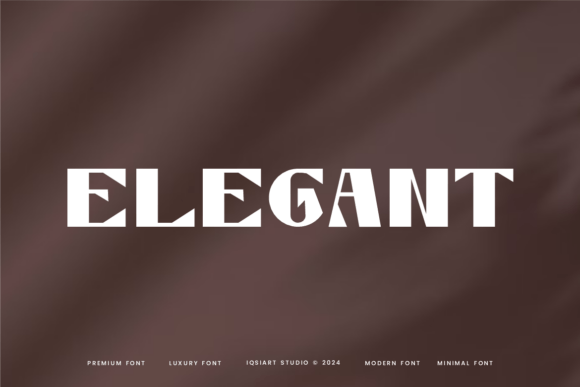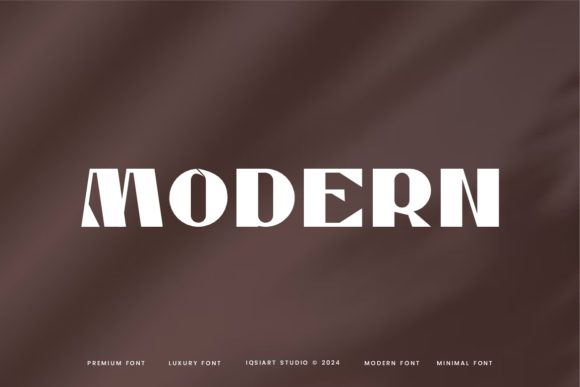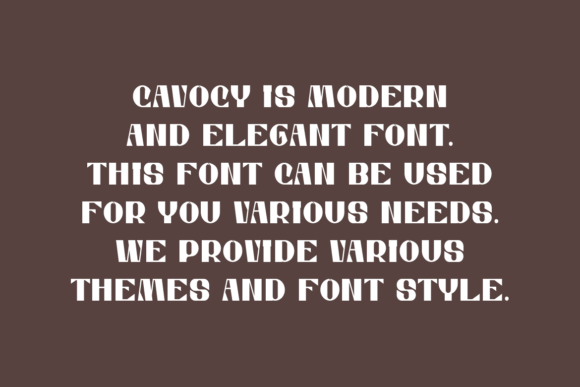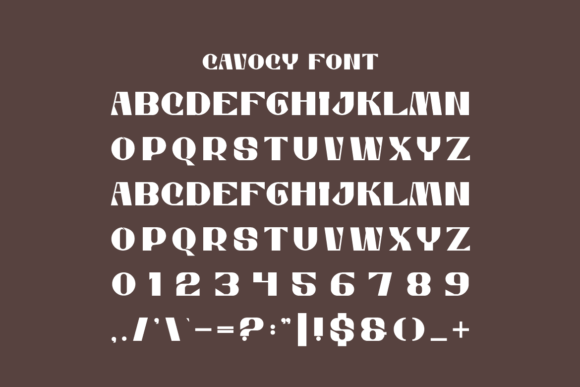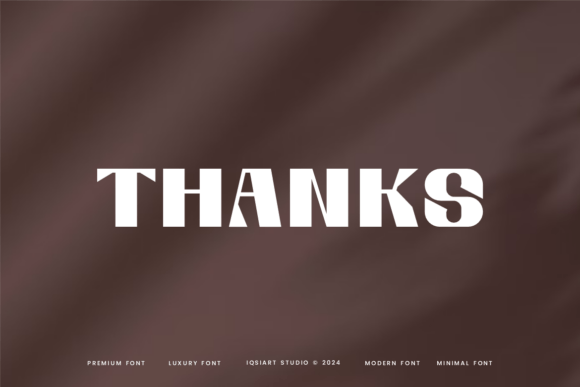
Cavocy Font: Elevate Your Designs with Luxury and Elegance
In the world of typography, fonts play a crucial role in defining the aesthetic and tone of a design. For designers and crafters seeking to add a touch of luxury and sophistication to their projects, Cavocy Font is an exceptional choice. This sleek and elegant font is specifically designed to bring a high-end feel to various designs, making it perfect for those who aim to create classy and stylish content.
The Essence of Cavocy Font
Cavocy Font is characterized by its smooth and refined letters, which exude a sense of elegance and refinement. The font’s design is meticulous, with careful attention to detail to ensure that each letterform is not only aesthetically pleasing but also highly legible. This combination of style and functionality makes Cavocy Font an excellent choice for a wide range of design applications, from luxury branding and high-end advertising to elegant packaging and sophisticated digital content.
Key Features of Cavocy Font
- Sleek and Elegant Design: Cavocy Font boasts a sleek and elegant design that instantly elevates the visual appeal of any project. Its refined letters are crafted to perfection, ensuring a luxurious feel that resonates with high-end audiences.
- Luxurious Feel: The font’s luxurious feel is one of its standout features, making it ideal for designs that require a sophisticated and classy touch. Whether you’re working on a luxury brand’s logo, an upscale advertisement, or a premium product’s packaging, Cavocy Font can help you achieve the desired level of elegance.
- High Legibility: Despite its elegant appearance, Cavocy Font does not compromise on legibility. The font’s clear and distinct letterforms ensure that your message is conveyed effectively, making it suitable for both headlines and body text.
- Versatility: Cavocy Font is incredibly versatile, allowing it to be used across various design projects. From digital platforms like websites and social media graphics to print materials such as brochures and business cards, this font adapts seamlessly to different mediums.
Applications of Cavocy Font
The versatility of Cavocy Font makes it suitable for a multitude of design applications. Here are some of the areas where this font truly shines:
- Luxury Branding: Create a lasting impression with a luxury brand logo that exudes elegance and sophistication. Cavocy Font’s refined letters are perfect for crafting a brand identity that speaks of high quality and exclusivity.
- Advertising and Marketing: Elevate your advertising and marketing materials with a font that captures attention and conveys a sense of luxury. From print ads to digital banners, Cavocy Font can help you create compelling visuals that resonate with your target audience.
- Packaging Design: For premium products, packaging design is crucial. Cavocy Font can add a touch of elegance to product packaging, making it stand out on store shelves and enhancing the unboxing experience for customers.
- Digital Content: In the digital realm, Cavocy Font can be used to create visually appealing websites, social media graphics, and email newsletters. Its sleek and elegant design ensures that your digital content leaves a lasting impression on your audience.
Tips for Using Cavocy Font Effectively
To maximize the impact of Cavocy Font in your designs, consider the following tips:
- Pair with Complementary Fonts: While Cavocy Font is elegant on its own, pairing it with complementary fonts can enhance its appeal. Choose fonts that contrast yet complement Cavocy’s sleek design to create visually appealing typography.
- Adjust Font Sizes: Experiment with different font sizes to create a visual hierarchy in your design. Using Cavocy Font in larger sizes for headlines and smaller sizes for body text can improve readability and emphasize key information.
- Utilize Font Weights: If Cavocy Font comes in multiple weights, take advantage of them to add depth to your design. Using a lighter weight for body text and a heavier weight for headlines can create a dynamic and engaging layout.
Cavocy Font is a powerful tool for designers and crafters aiming to infuse their projects with a sense of luxury and elegance. Its sleek and refined letters, combined with its high legibility and versatility, make it an excellent choice for a wide range of design applications. By incorporating Cavocy Font into your designs and following best practices for typography, you can create visually stunning and impactful content that resonates with your audience. Whether you’re working on luxury branding, advertising, packaging, or digital content, Cavocy Font is sure to elevate your designs to new heights of sophistication and style.